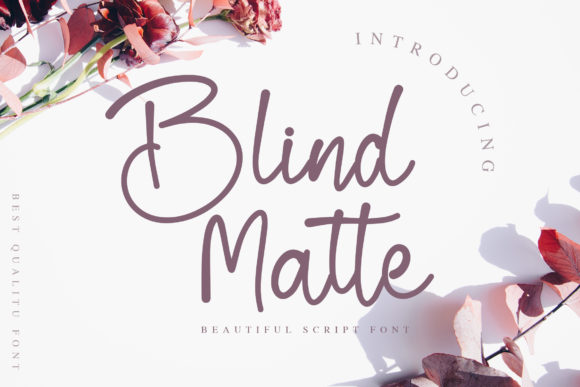
The Designer’s Delight: Blind Matte Script Font
I’ll never forget the time I was working on a wedding invitation project, and my client asked for a font that was both elegant and modern. I scoured the internet, tried countless fonts, but nothing seemed quite right. That was until I stumbled upon Blind Matte Script Font. It was love at first sight! 💕 The classy, elegant, and modern look of this font instantly won me over, and I knew I had found the perfect fit for my project.
So, what makes Blind Matte Script Font so special? Here are a few things that I absolutely adore:
- ✨ Simple yet sophisticated design that’s perfect for a wide range of projects
- ✅ Highly versatile and can be used for logos, branding, invitations, stationery, wedding designs, social media posts, and more
- 💫 Beautiful, flowing script that’s easy to read and looks great in both digital and print formats
- 🎨 Great for designers, crafters, and creative hobbyists who want to add a touch of elegance to their work
- 🤔 Some users may find the font a bit too delicate for certain design applications
- ⚠️ Limited availability of certain OpenType features, such as ligatures and stylistic alternates
The Designer Inspiration Behind Blind Matte Script Font
Blind Matte Script Font was designed with the goal of creating a beautiful, elegant script font that’s both modern and timeless. The designer drew inspiration from classic calligraphy and modern digital design trends to create a font that’s both refined and approachable.
| What type of projects is Blind Matte Script Font best suited for? | Blind Matte Script Font is highly versatile and can be used for a wide range of projects, including logos, branding, invitations, stationery, wedding designs, social media posts, and more. |
| Is Blind Matte Script Font easy to read? | Yes, Blind Matte Script Font is designed to be easy to read, even at smaller font sizes. |
| Does Blind Matte Script Font come with OpenType features? | Yes, Blind Matte Script Font includes some OpenType features, such as glyphs and stylistic alternates, but the availability of certain features may be limited. |